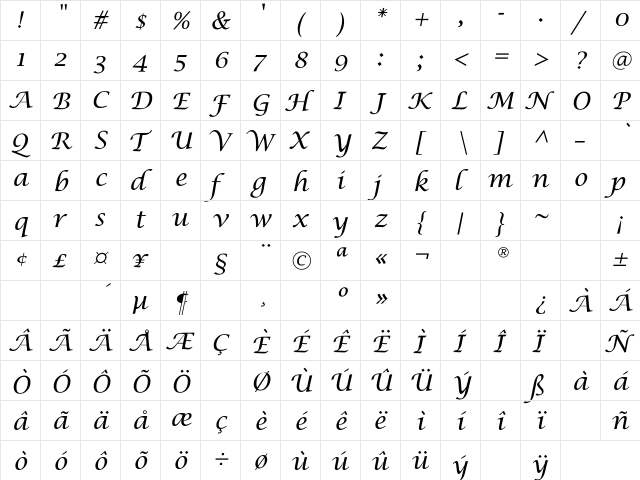
Lucida Calligra Regular
Design Context for Lucida Calligra Typeface
Lucida Calligra is a composed and adaptable typeface that performs quietly and consistently across a wide range of design contexts.
Pro Tip: Use Lucida Calligra in both headline and body roles to test its range before committing to a single application.